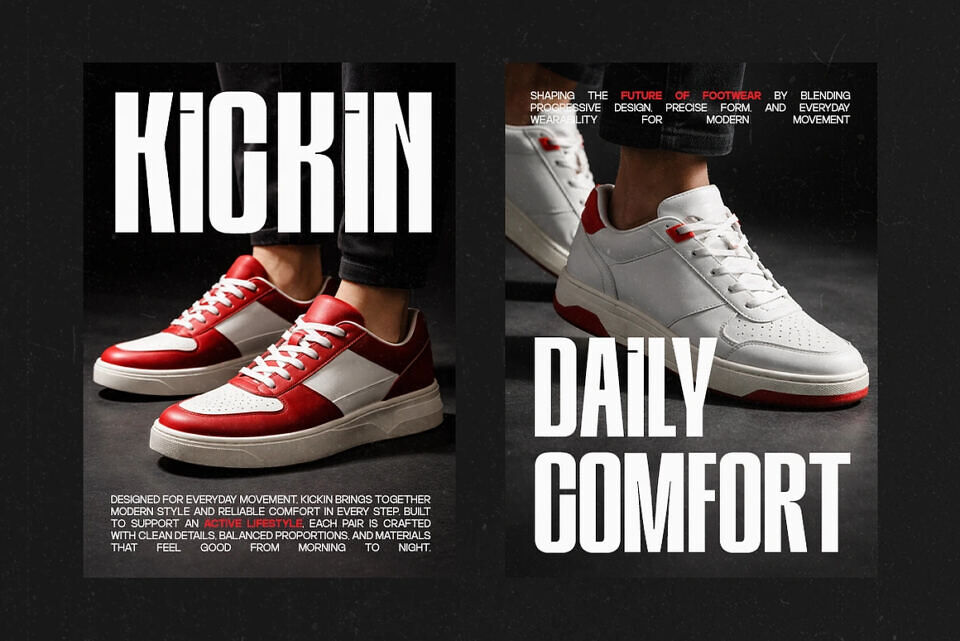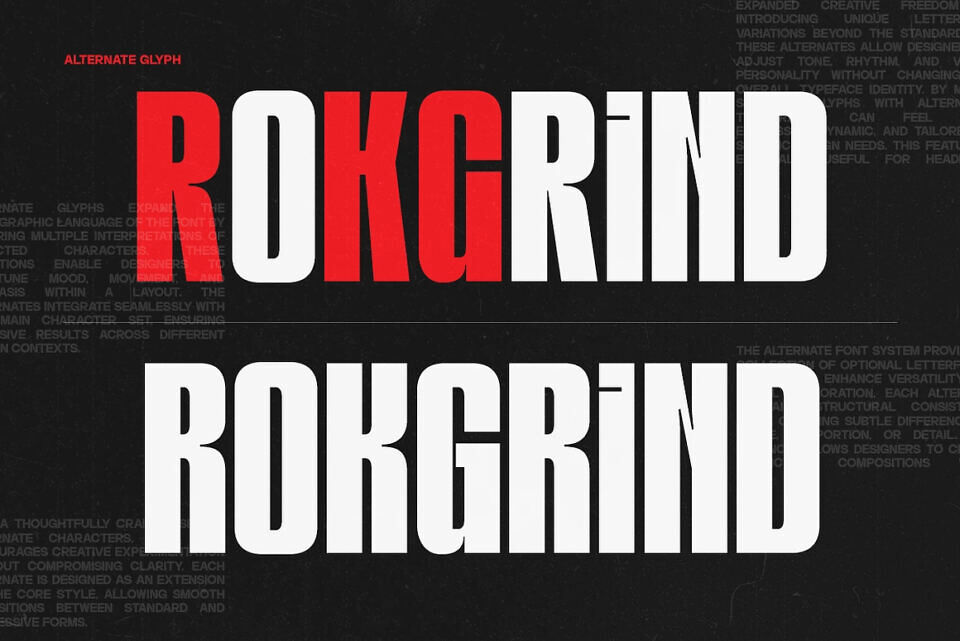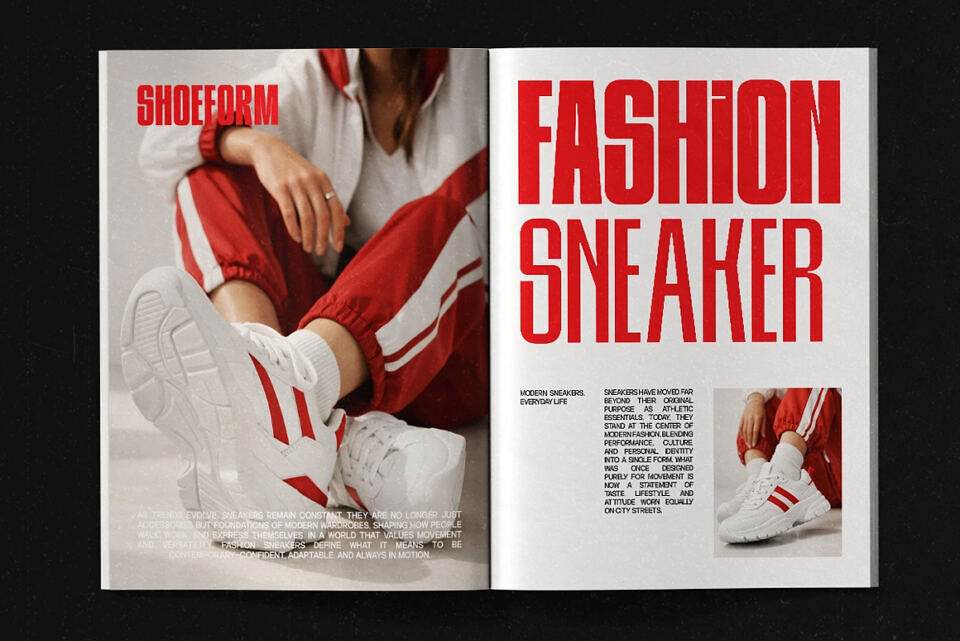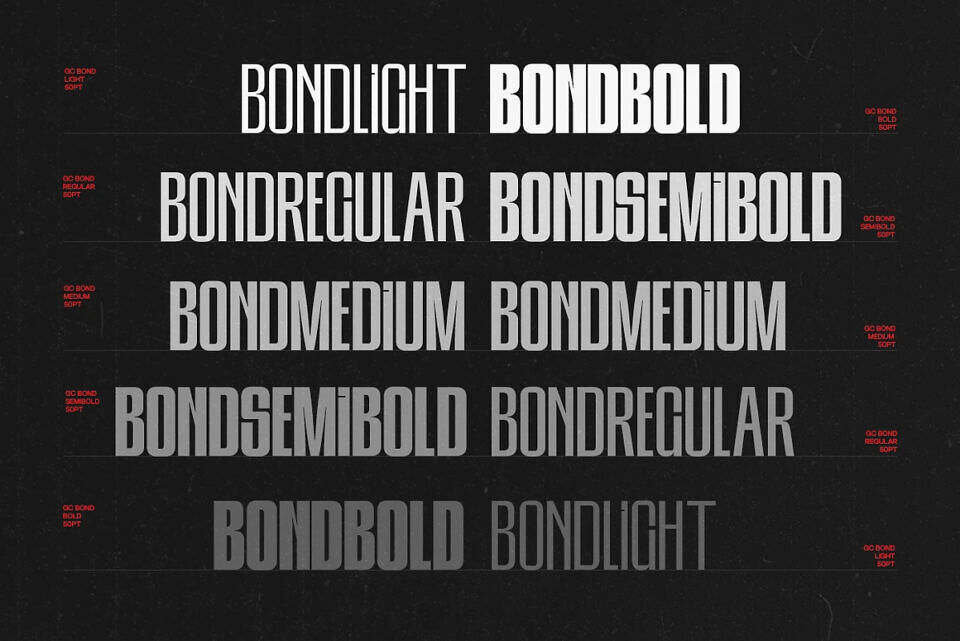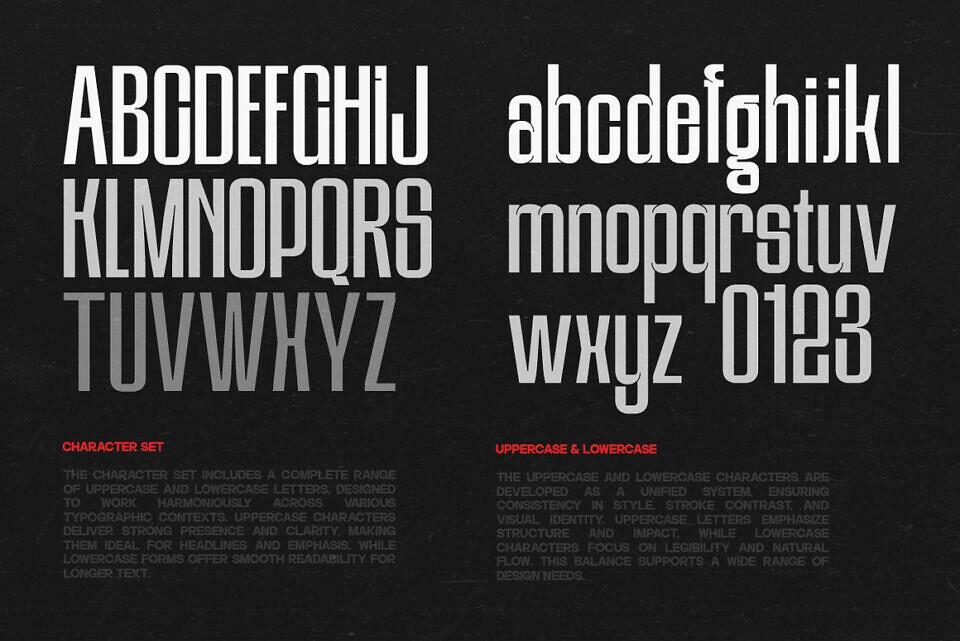
GC Bond is a contemporary sans serif typeface family designed with a condensed structure and inktrap detailing to deliver strong readability, efficiency, and modern character. Built for clarity in tight spaces, GC Bond combines sharp geometry with functional inktraps—ensuring optimal performance across both digital and print environments.
Designed as a complete font family, GC Bond offers multiple styles that provide flexibility and consistency across typographic systems. Its condensed proportions make it ideal for headlines, branding, editorial layouts, posters, and space-conscious design applications, while the inktrap construction enhances legibility at smaller sizes and in high-contrast outputs.